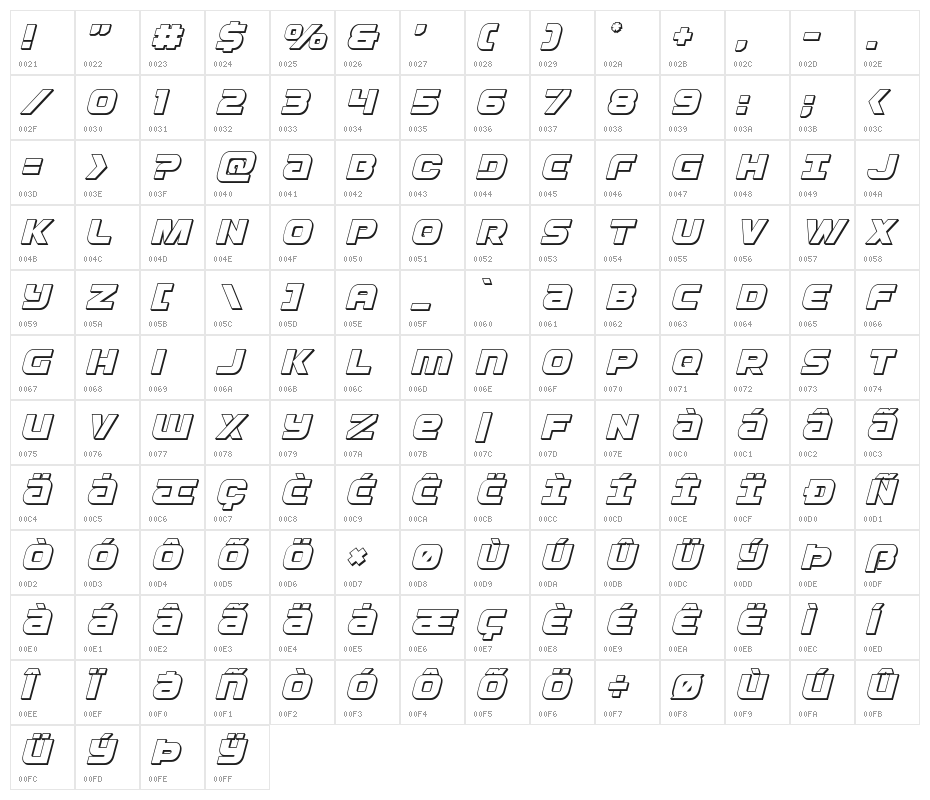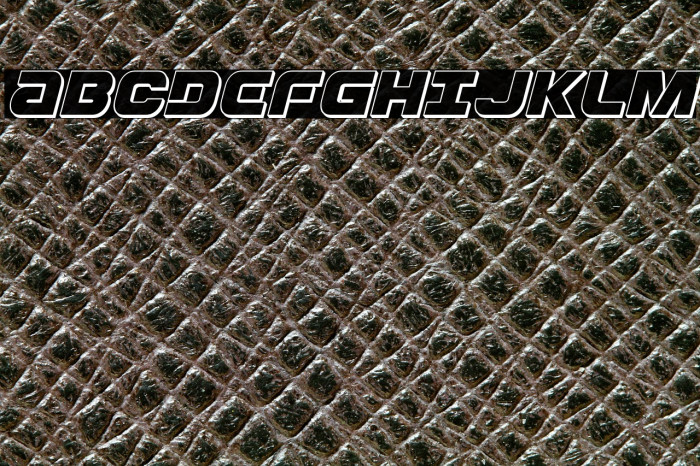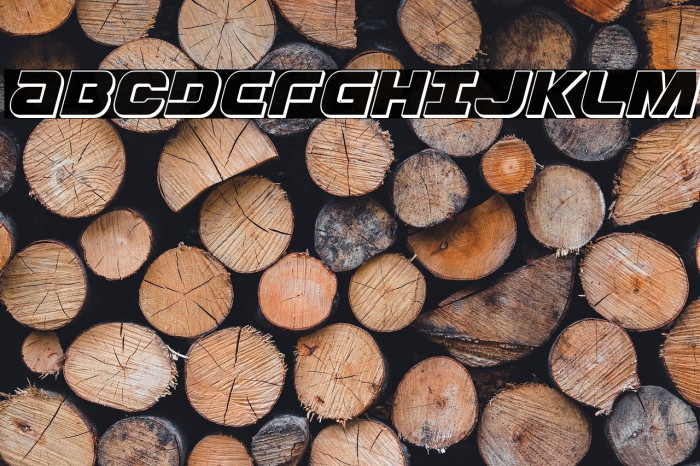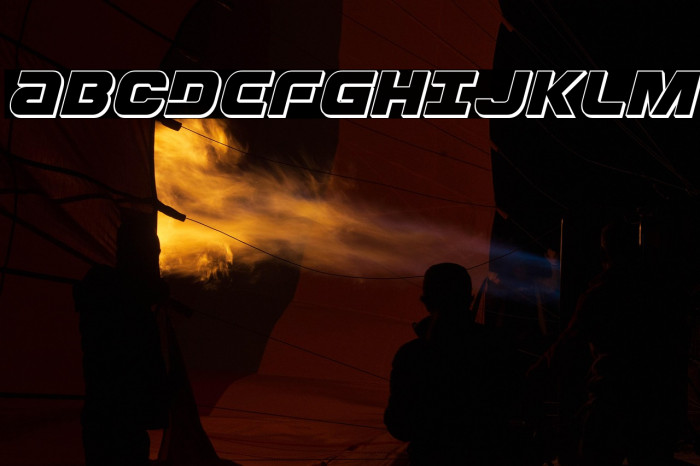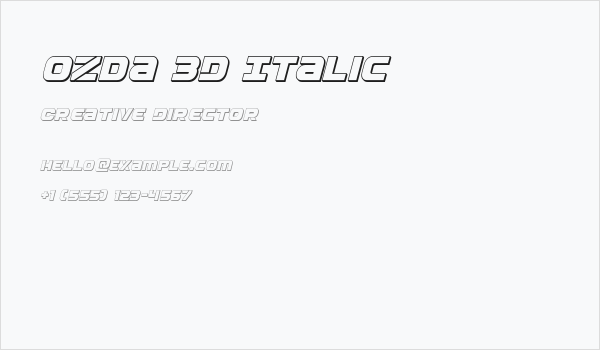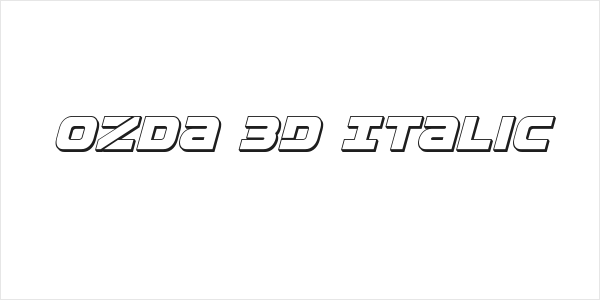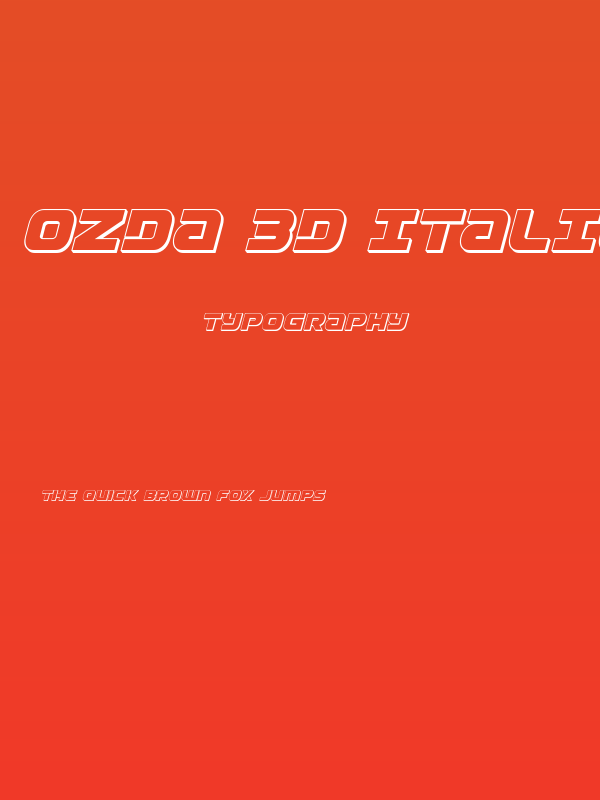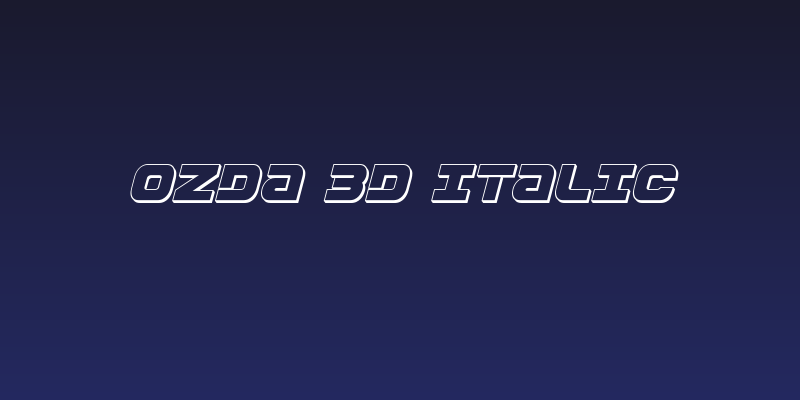
Ozda 3D Italic Font
Ozda 3D Italic Description
This font features a bold, three-dimensional appearance with a distinct italic slant. The characters are outlined, giving them a hollow look that enhances their 3D effect. The uppercase and lowercase letters maintain a consistent style, with angular edges and a futuristic aesthetic. The numbers and special characters follow the same design principles, ensuring uniformity across all glyphs. This font's unique style makes it stand out, ideal for projects that require a modern and eye-catching typeface.
| Proposed Projects | Ideal for video game titles, sci-fi movie posters, tech branding, and any project needing a modern, standout typeface. |